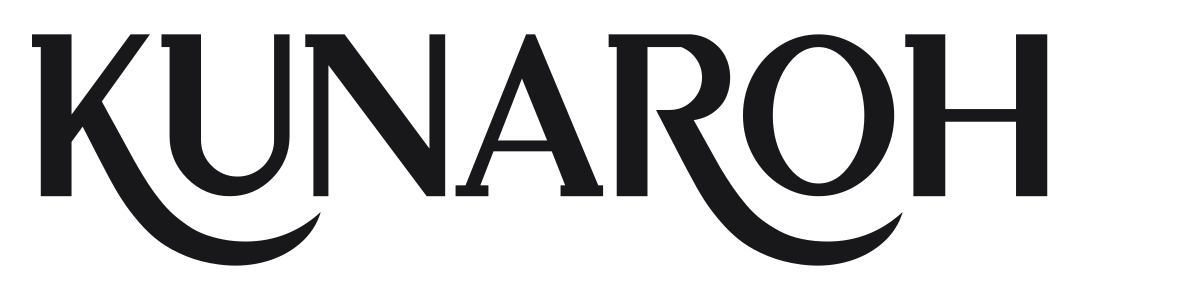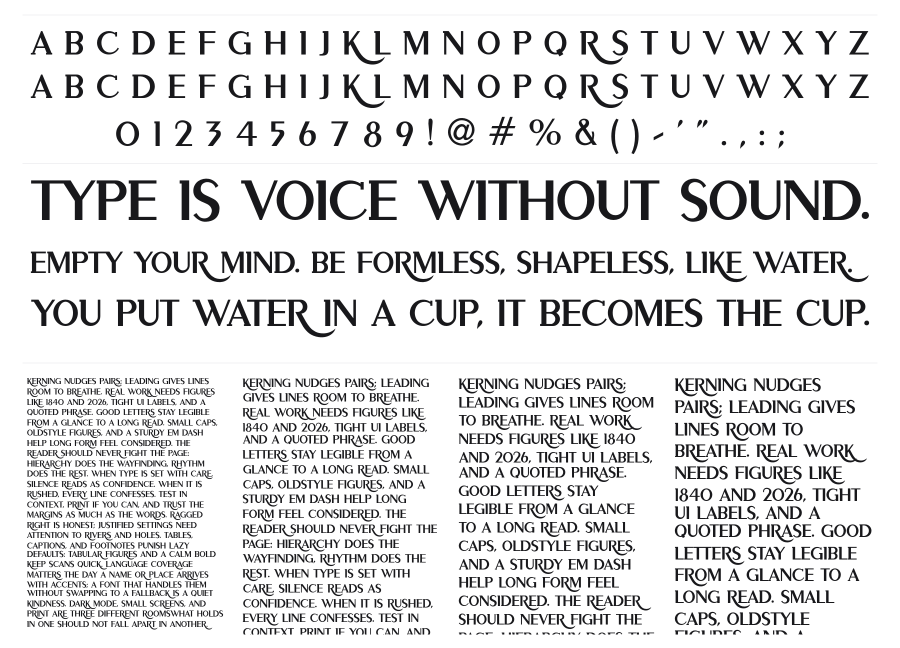
Kunaroh
Kunaroh is a high-contrast display serif with dramatic thick-thin stroke variation and sweeping calligraphic flourishes on select characters. The tension between its structured Roman skeleton and those fluid decorative curves gives it a distinctly editorial, high-fashion energy. It works best at large sizes where the contrast and flourish details can breathe.